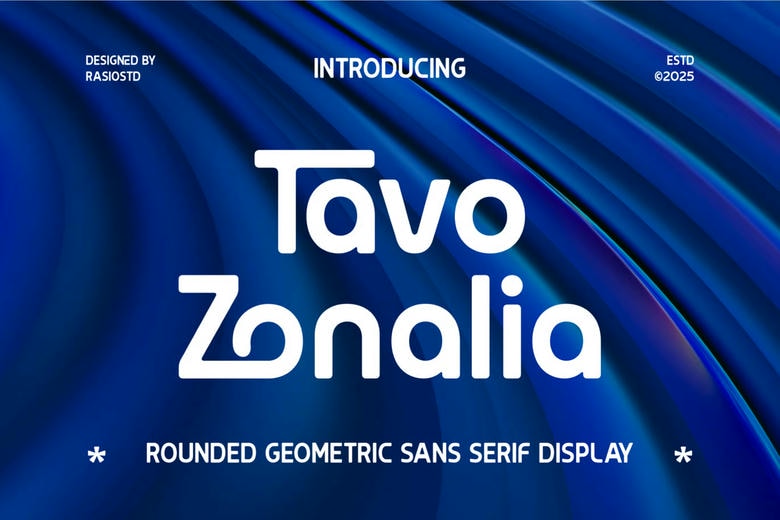
Tavo Zonalia Font
Tavo Zonalia is a smooth geometric sans serif display font with rounded shapes to be used in modern tech branding. This typeface has its brash ligatures, minimal letterforms and utopian alternates and is where tech-meets-design; perfect for high-frequency communication, interface UI/UX, suited to sci-fi titles, or even any digital product that needs a stylish tech look. Thelynic curves and the rational mathematical accuracy give clear, aggressive and futuristic appearance in headlines, posters, game interface and other visuals regarding the AI.
Tavo Zonalia Sans Serif Font